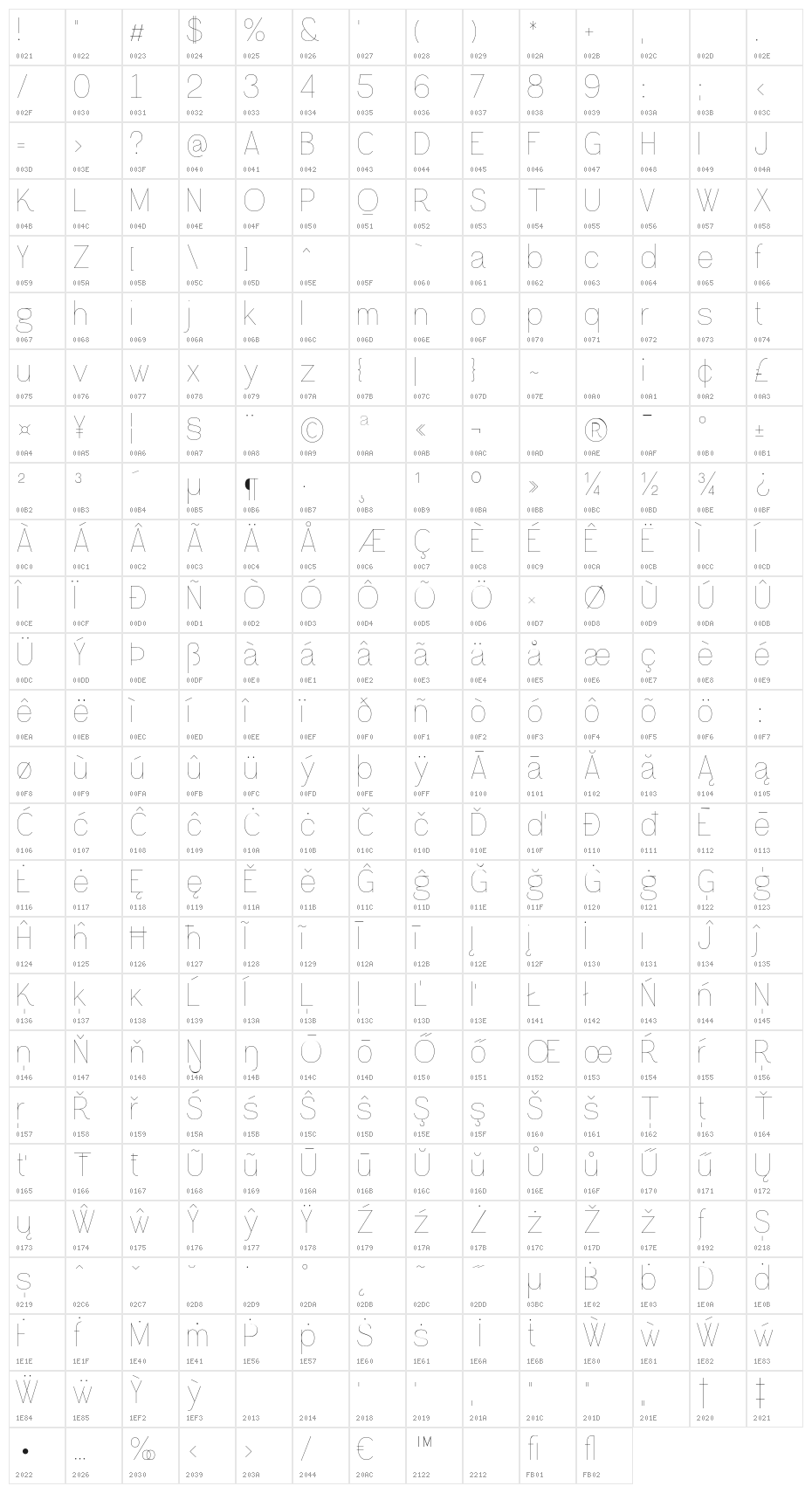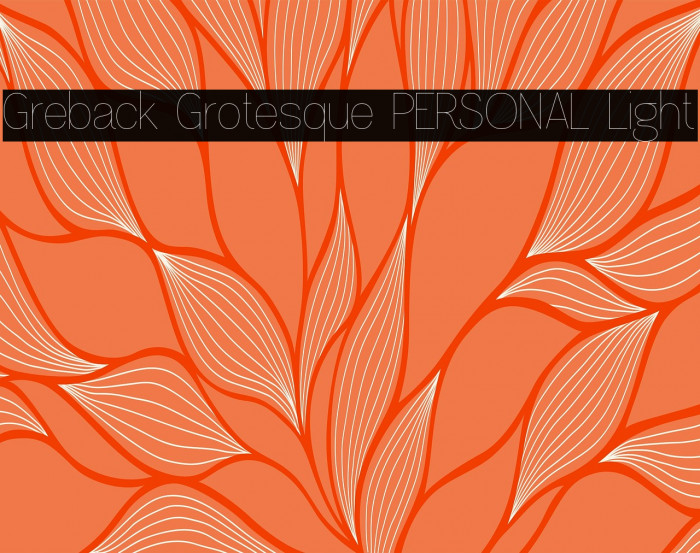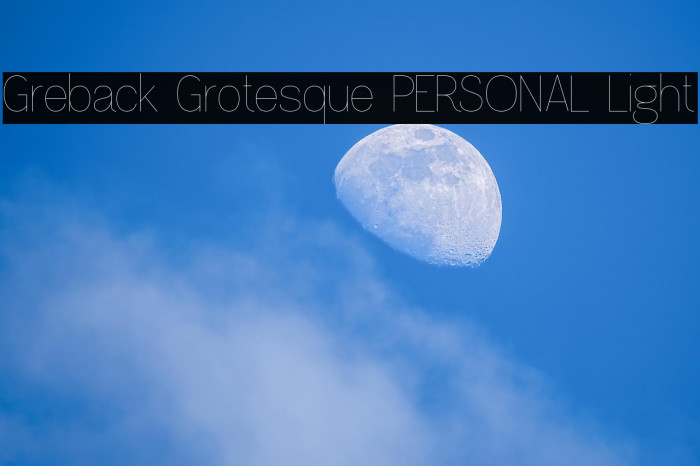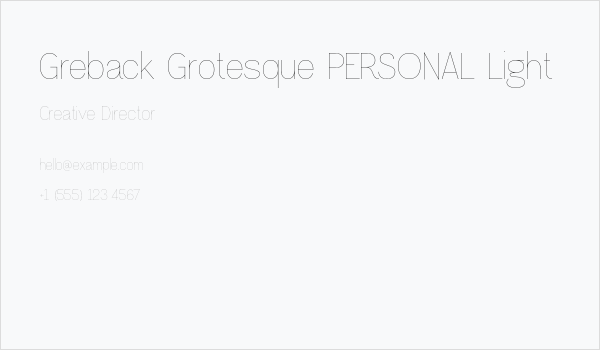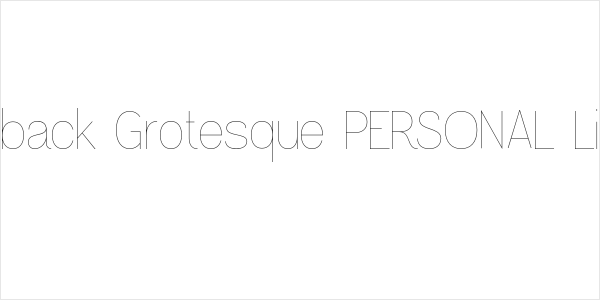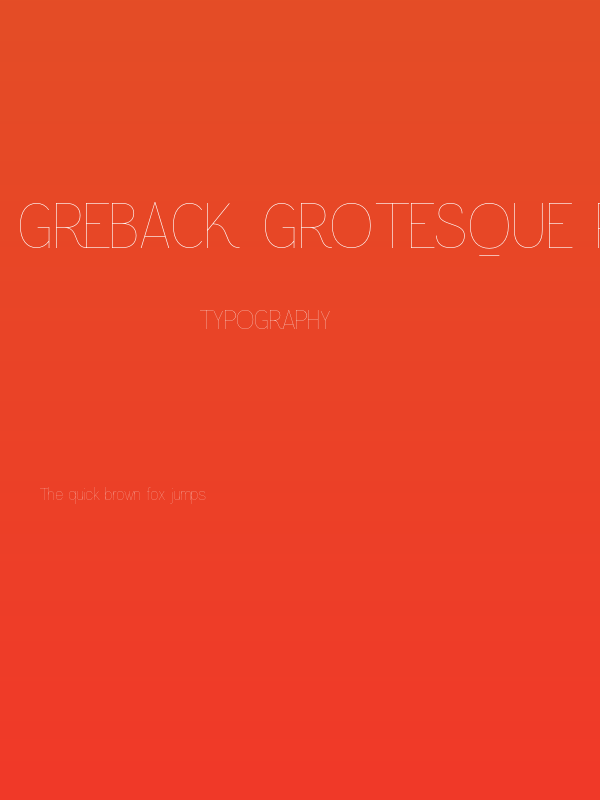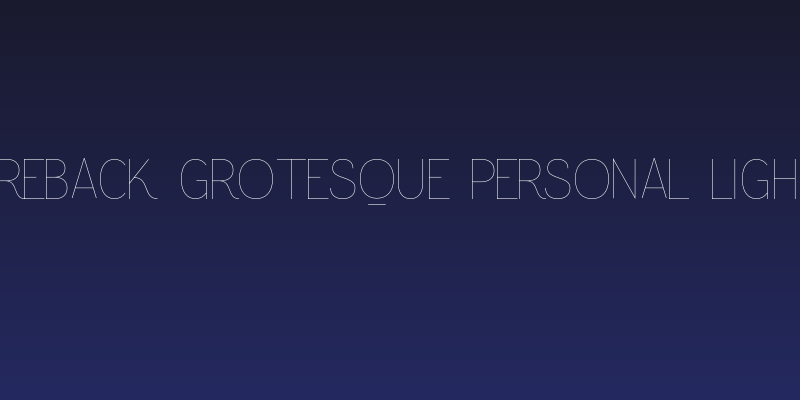
Greback Grotesque PERSONAL Light Font
Greback Grotesque PERSONAL Light Description
This font features a clean and minimalist design with a modern aesthetic. The characters are thin and elongated, giving it a sleek and sophisticated appearance. The uppercase and lowercase letters maintain a consistent height, contributing to a uniform look. The numerals and special characters are designed with the same thin strokes, ensuring harmony across all elements. Its simplicity and elegance make it versatile for various design applications.
| Proposed Projects | Ideal for branding, editorial design, and minimalist posters. |